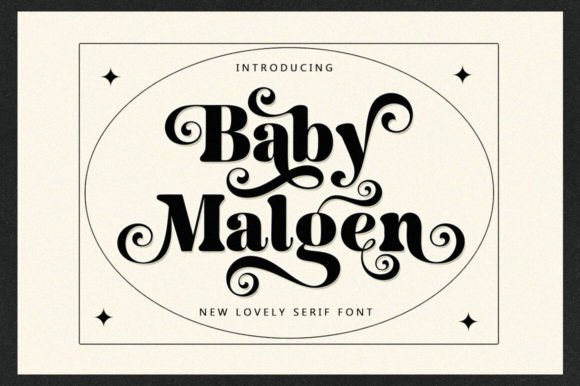
Baby Malgen Font: Elevate Your Designs with a Luxurious Serif Font
The world of typography is vast and diverse, offering a multitude of font styles to suit various design needs. Among these, the Baby Malgen font stands out as a beautiful and versatile serif font that has captured the attention of designers and crafters alike. This font is characterized by its unique blend of luxurious and modern elements, making it an ideal choice for those seeking to add a touch of elegance and sophistication to their designs.
The Characteristics of Baby Malgen Font
Baby Malgen is a serif font that exudes a sense of luxury and modernity. Its serif style is designed to provide a classic and timeless look, while its modern form ensures that it remains fresh and contemporary. The font’s versatility is evident in its ability to convey a friendly and cheerful style when used in bold, making it suitable for a wide range of design applications.
Key Features of Baby Malgen Font
- Serif Style: Baby Malgen’s serif style gives it a classic and sophisticated look, making it perfect for designs that require a touch of elegance.
- Luxurious and Modern: The font’s luxurious and modern design ensures that it remains fresh and contemporary, making it suitable for a wide range of design applications.
- Glyphs: Baby Malgen comes with a range of glyphs, providing crafters with more choices when it comes to designing.
- Versatile: The font’s versatility makes it suitable for use in various design projects, from branding and advertising to packaging and publishing.
The Benefits of Using Baby Malgen Font
The Baby Malgen font offers a range of benefits to designers and crafters. Its unique blend of luxurious and modern elements makes it an ideal choice for those seeking to add a touch of elegance and sophistication to their designs. Some of the key benefits of using Baby Malgen font include:
Why Choose Baby Malgen Font?
- Elegant and Sophisticated: Baby Malgen’s luxurious and modern design makes it perfect for designs that require a touch of elegance and sophistication.
- Unique and Edgy: The font’s unique blend of serif and modern elements gives it an edgy and distinctive look, making it stand out from other fonts.
- Classy and Timeless: Baby Malgen’s classic serif style ensures that it remains timeless and classy, making it suitable for designs that require a vintage or retro look.
- Flexible: The font’s versatility makes it suitable for use in various design projects, from branding and advertising to packaging and publishing.
Using Baby Malgen Font in Design Projects
Baby Malgen font can be used in a wide range of design projects, from branding and advertising to packaging and publishing. Its versatility and unique blend of luxurious and modern elements make it an ideal choice for designers seeking to add a touch of elegance and sophistication to their designs.
Design Applications for Baby Malgen Font
- Branding and Advertising: Baby Malgen font is perfect for use in branding and advertising projects, such as logos, brochures, and flyers.
- Packaging: The font’s elegant and sophisticated design makes it suitable for use in packaging projects, such as product labels and packaging materials.
- Publishing: Baby Malgen font can be used in publishing projects, such as books, magazines, and newspapers.
- Digital Media: The font’s versatility makes it suitable for use in digital media, such as websites, social media, and mobile apps.
Tips for Using Baby Malgen Font Effectively
To get the most out of Baby Malgen font, it’s essential to use it effectively. Here are some tips for using the font in your design projects:
Effective Use of Baby Malgen Font
- Use it sparingly: Baby Malgen font is a statement font, so use it sparingly to avoid overwhelming your design.
- Pair it with other fonts: The font’s versatility makes it suitable for use in combination with other fonts, so experiment with different pairings to find the perfect combination.
- Experiment with different sizes: Baby Malgen font can be used in a range of sizes, from small to large, so experiment with different sizes to find the perfect fit for your design.
- Pay attention to kerning: As with any font, pay attention to kerning to ensure that your text is easy to read and visually appealing.
In conclusion, Baby Malgen font is a beautiful and versatile serif font that offers a unique blend of luxurious and modern elements. Its elegance, sophistication, and versatility make it an ideal choice for designers seeking to add a touch of class and sophistication to their designs. With its range of glyphs and flexible design, Baby Malgen font is perfect for use in a wide range of design projects, from branding and advertising to packaging and publishing.